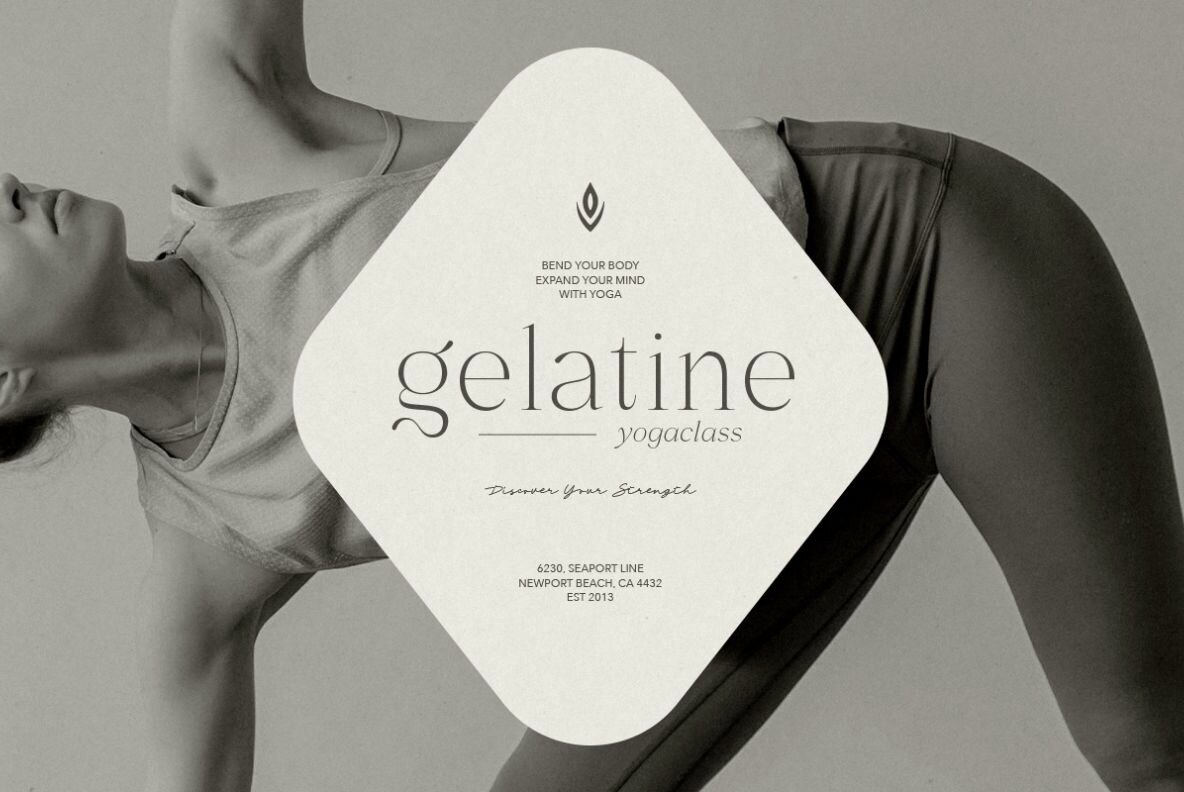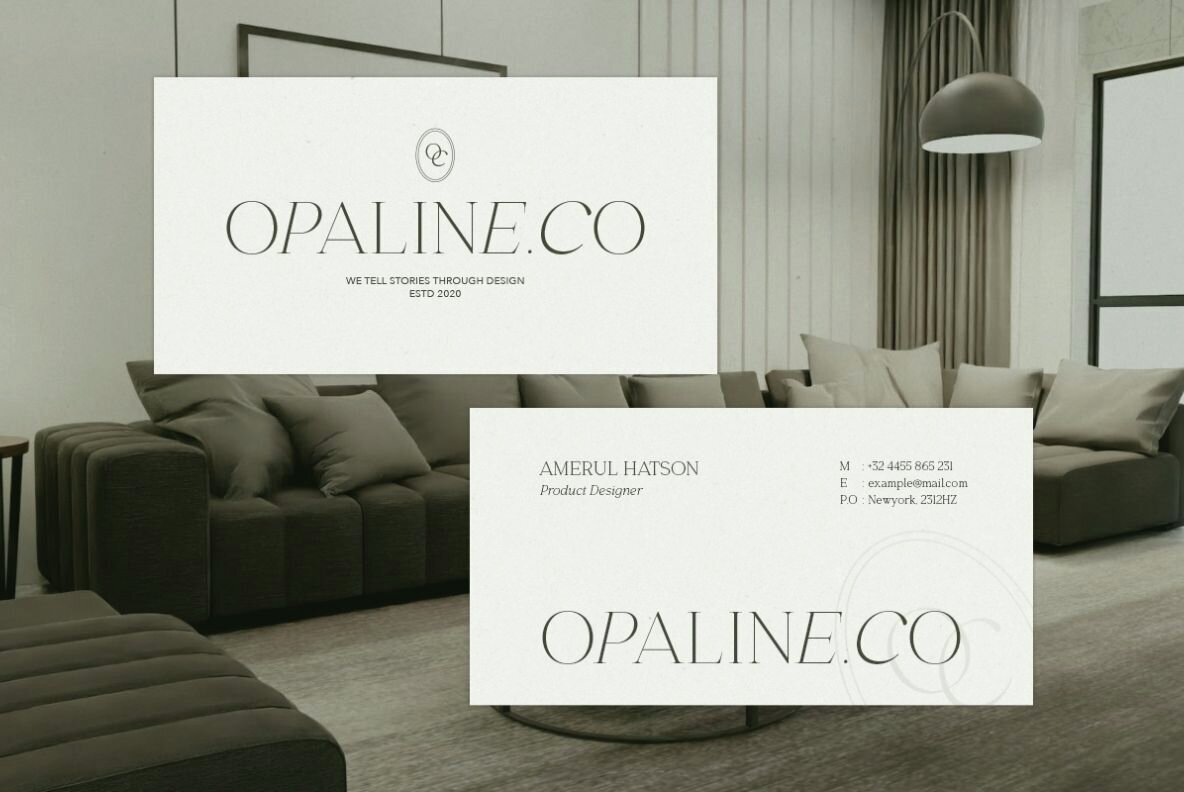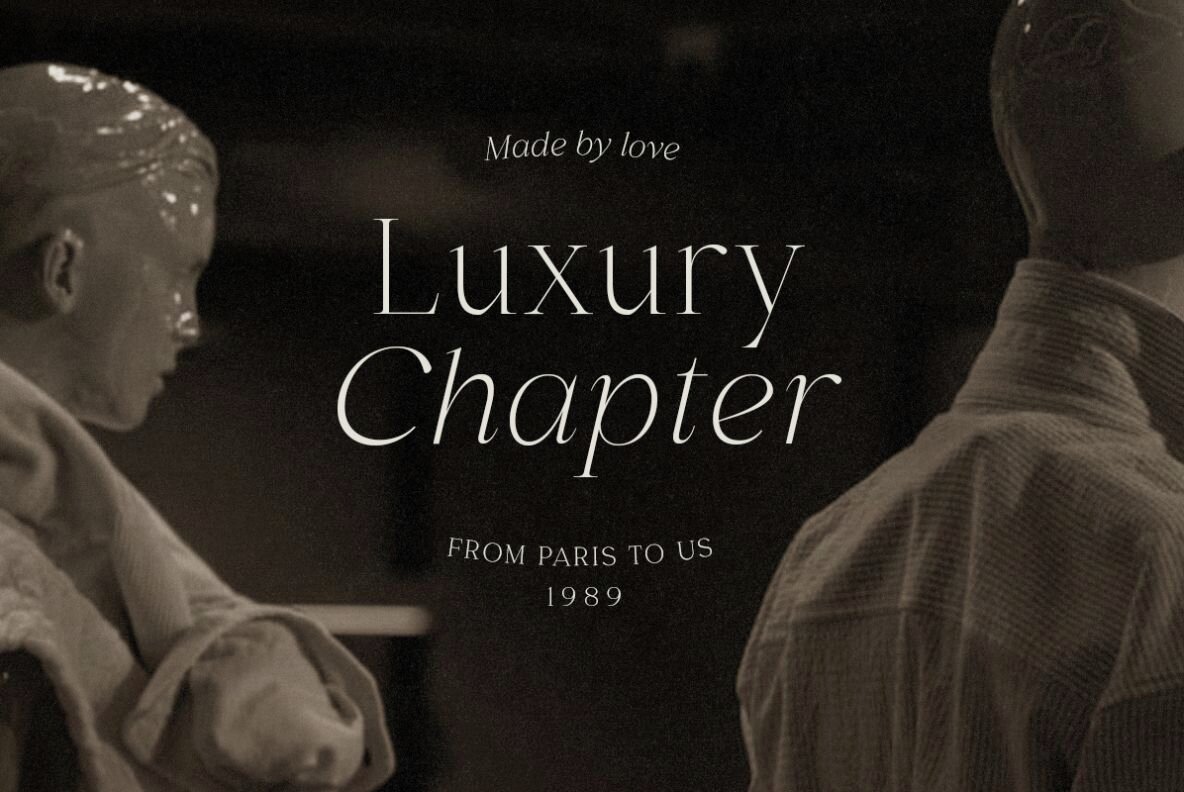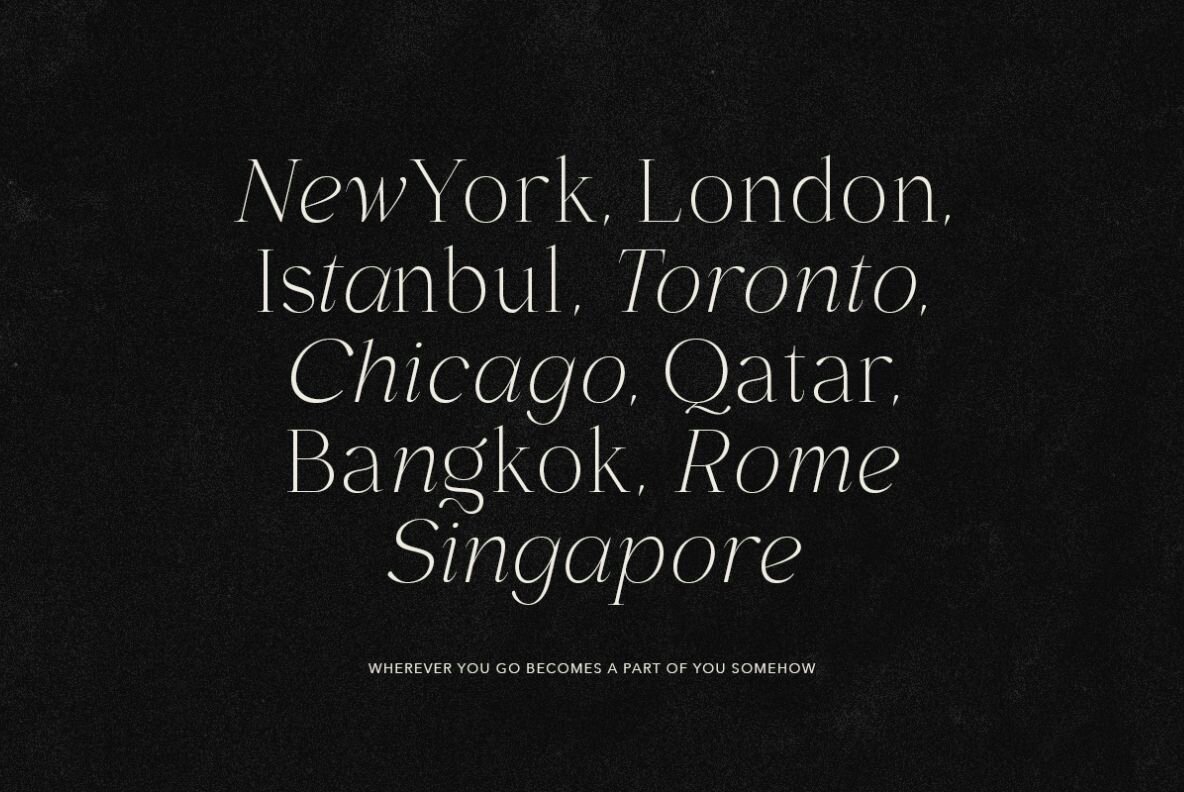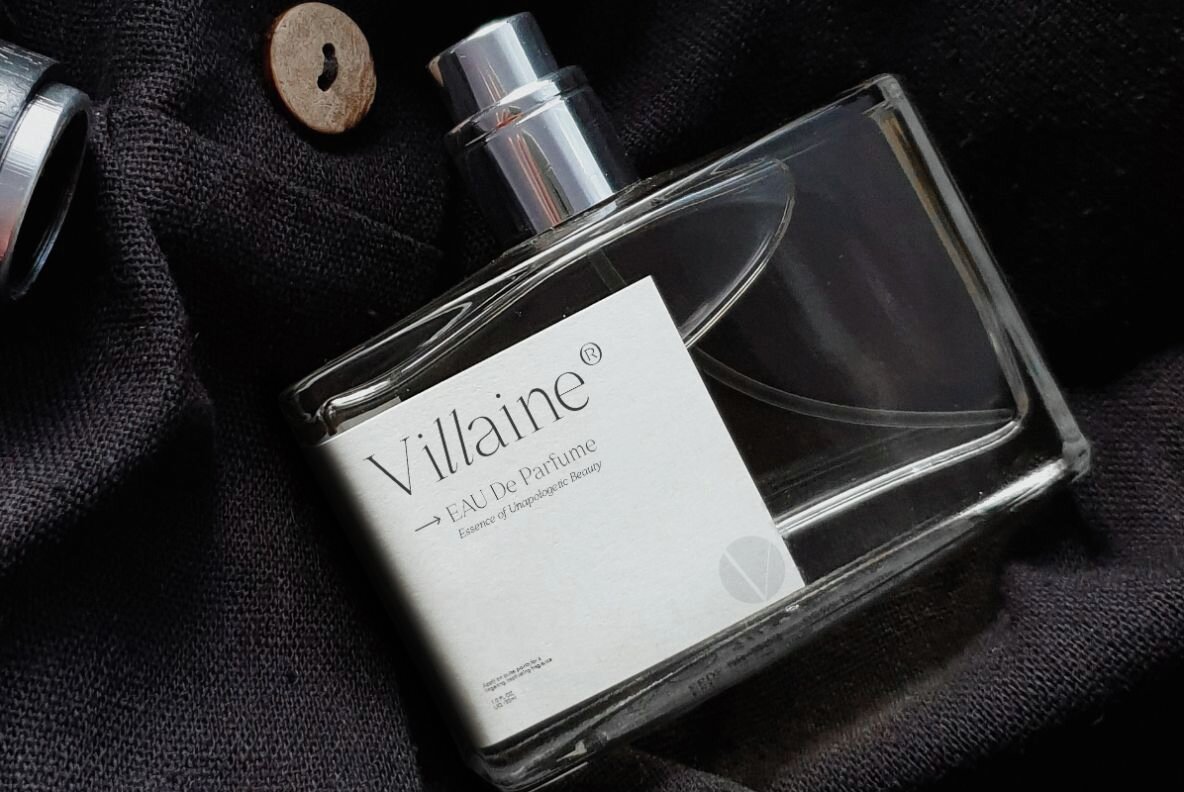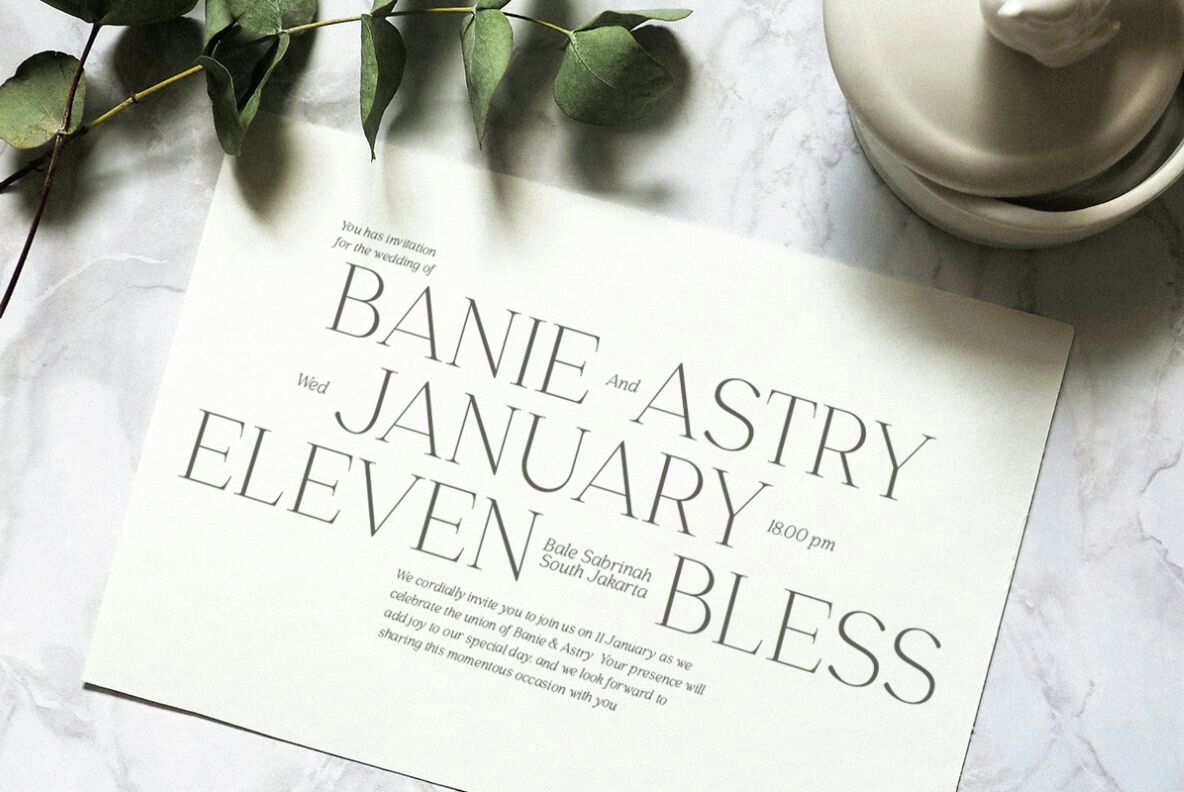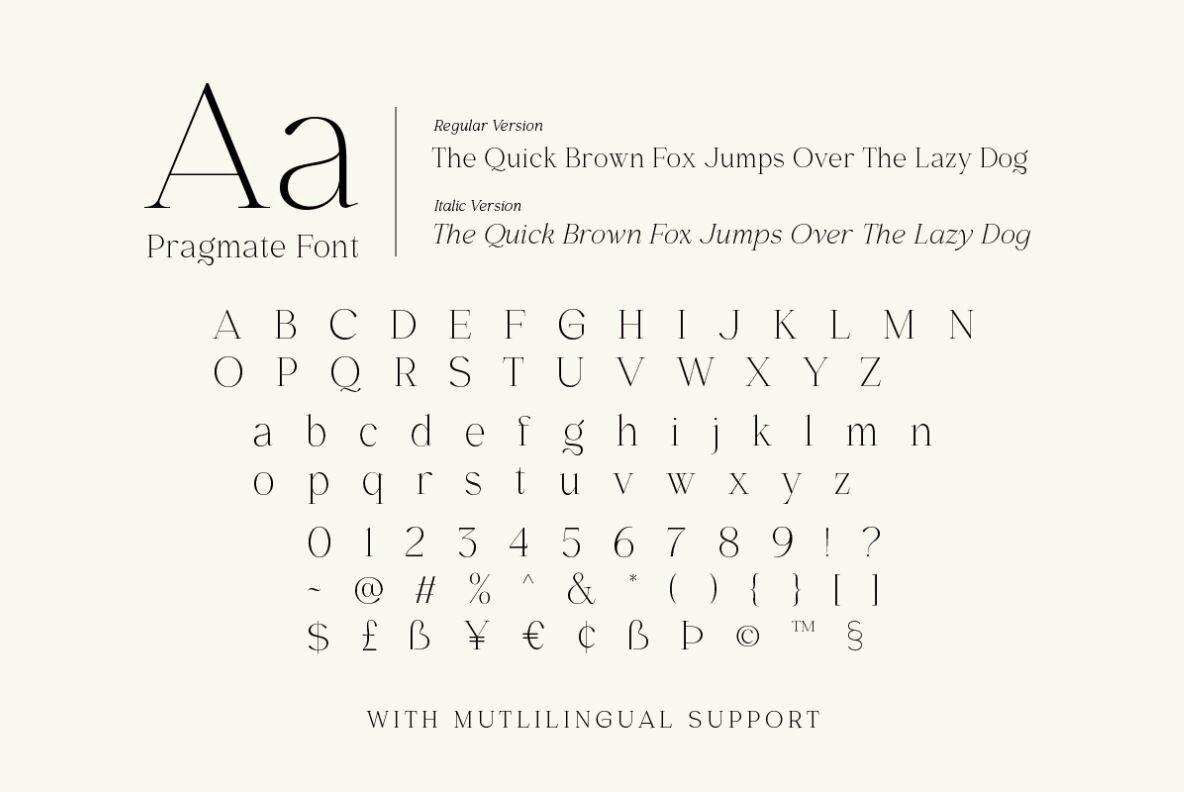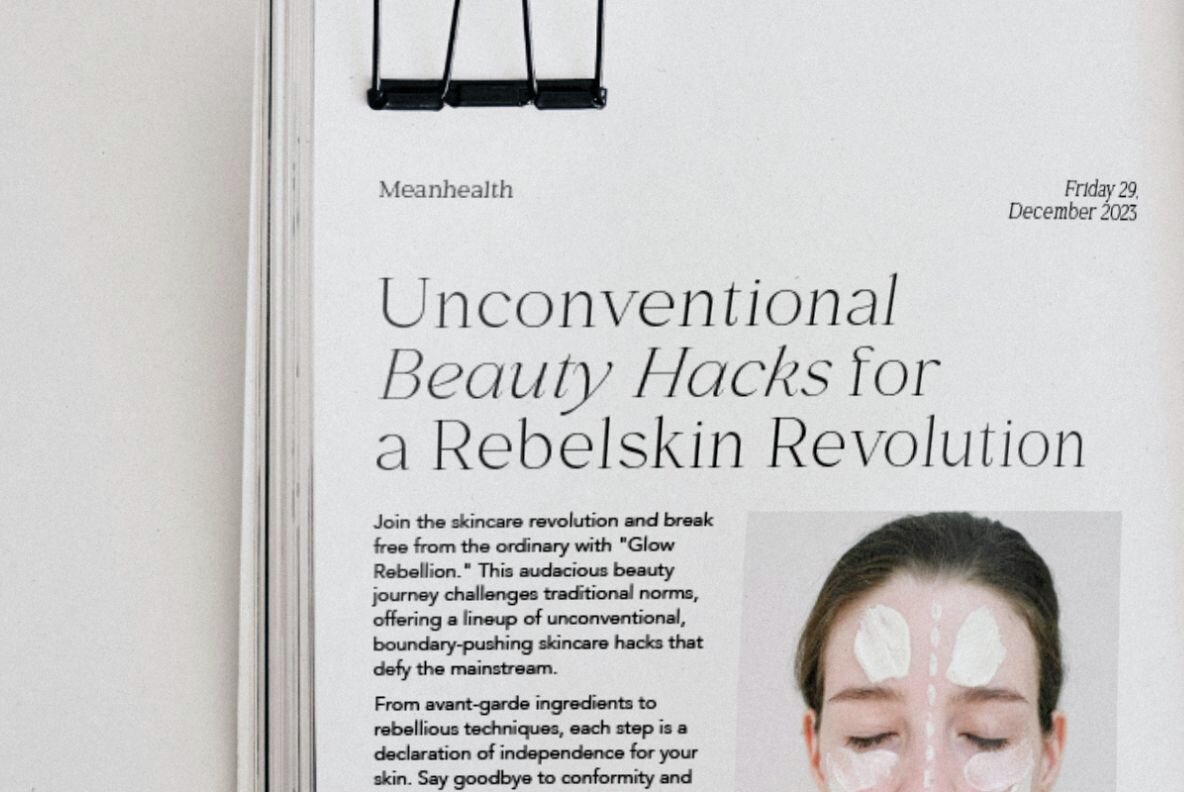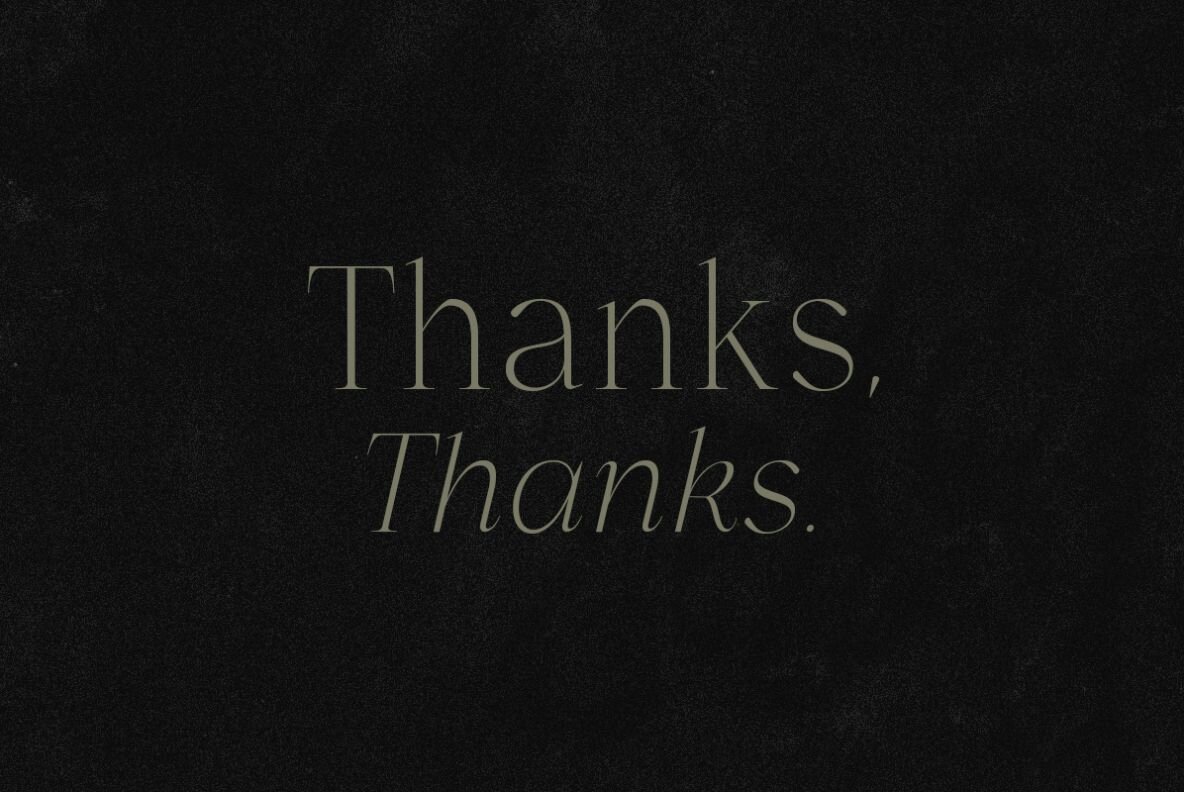
Pragmate is a sophisticated light serif font family available in two elegant styles: Regular and Italic. Its clean and minimalist design ensures versatility, making it suitable for branding, logos, quotes, and as a complement to script fonts. Crafted with precision, Pragmate offers a balance of casual charm and class, ideal for both digital and print media projects.
Tailored for a global audience, Pragmate supports multiple languages, expanding its usability and reach across diverse projects. Whether designing a logo, creating a brand identity, or crafting compelling quotes, this font family offers the adaptability needed to achieve a polished and professional look.